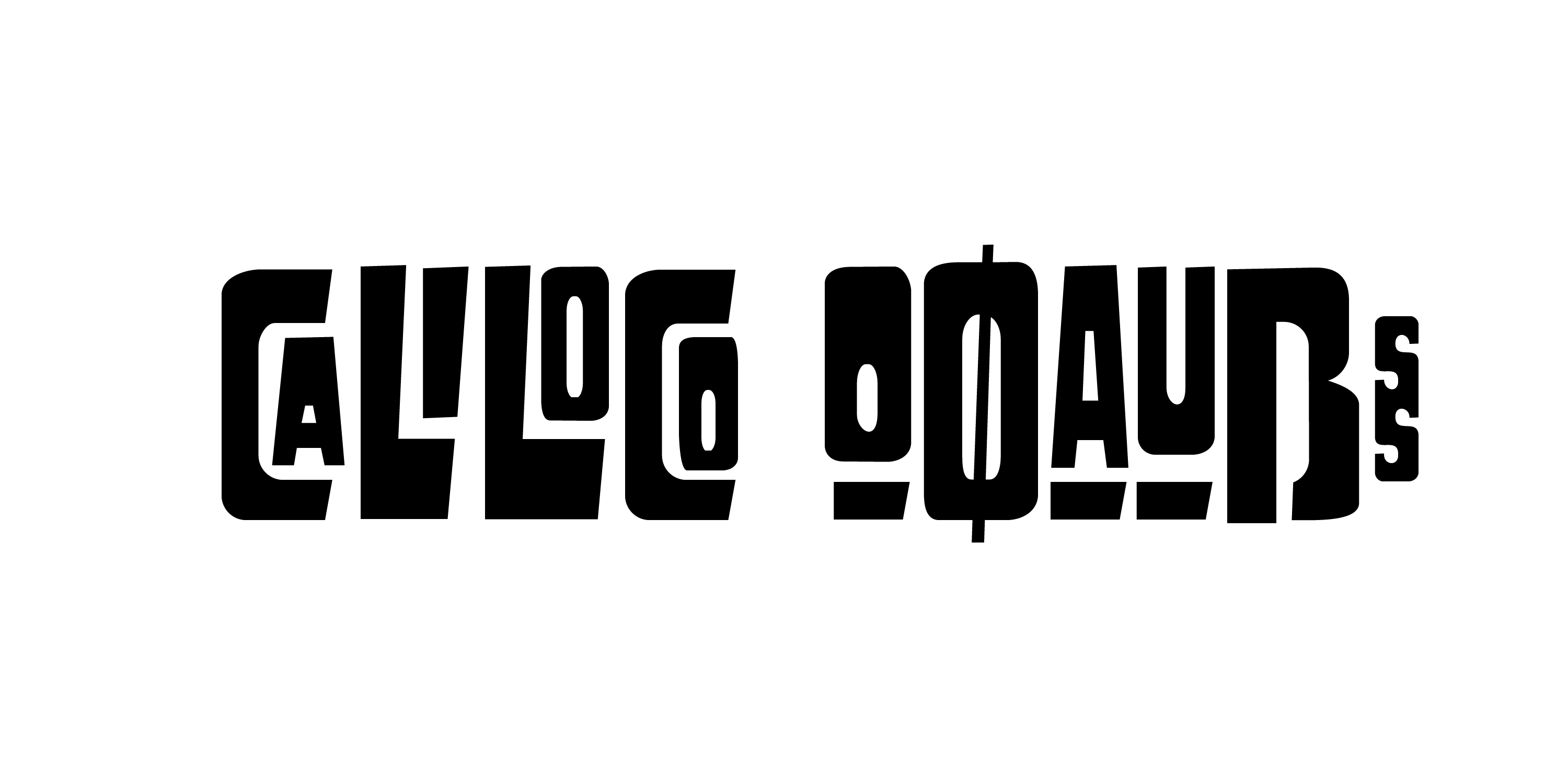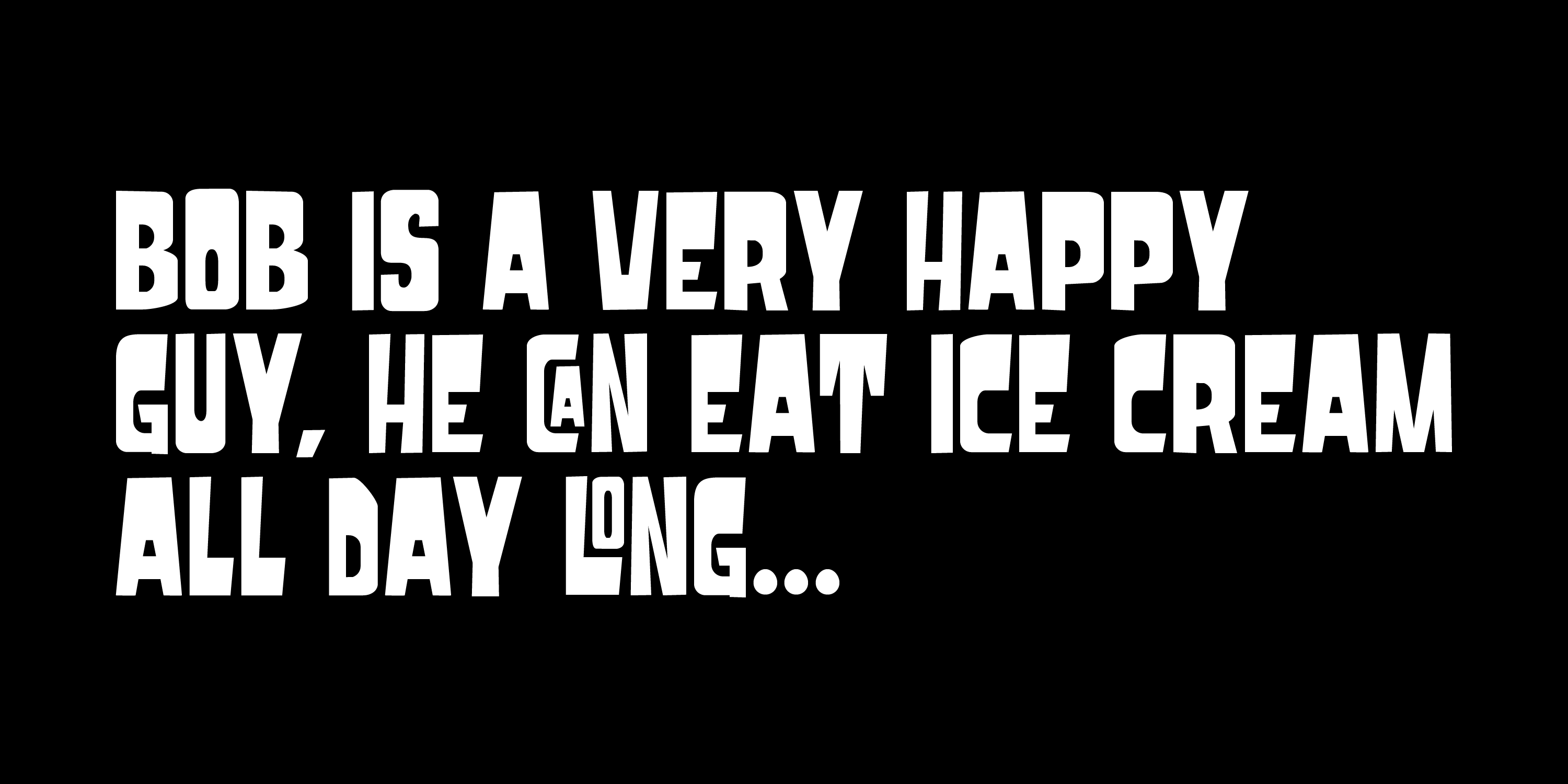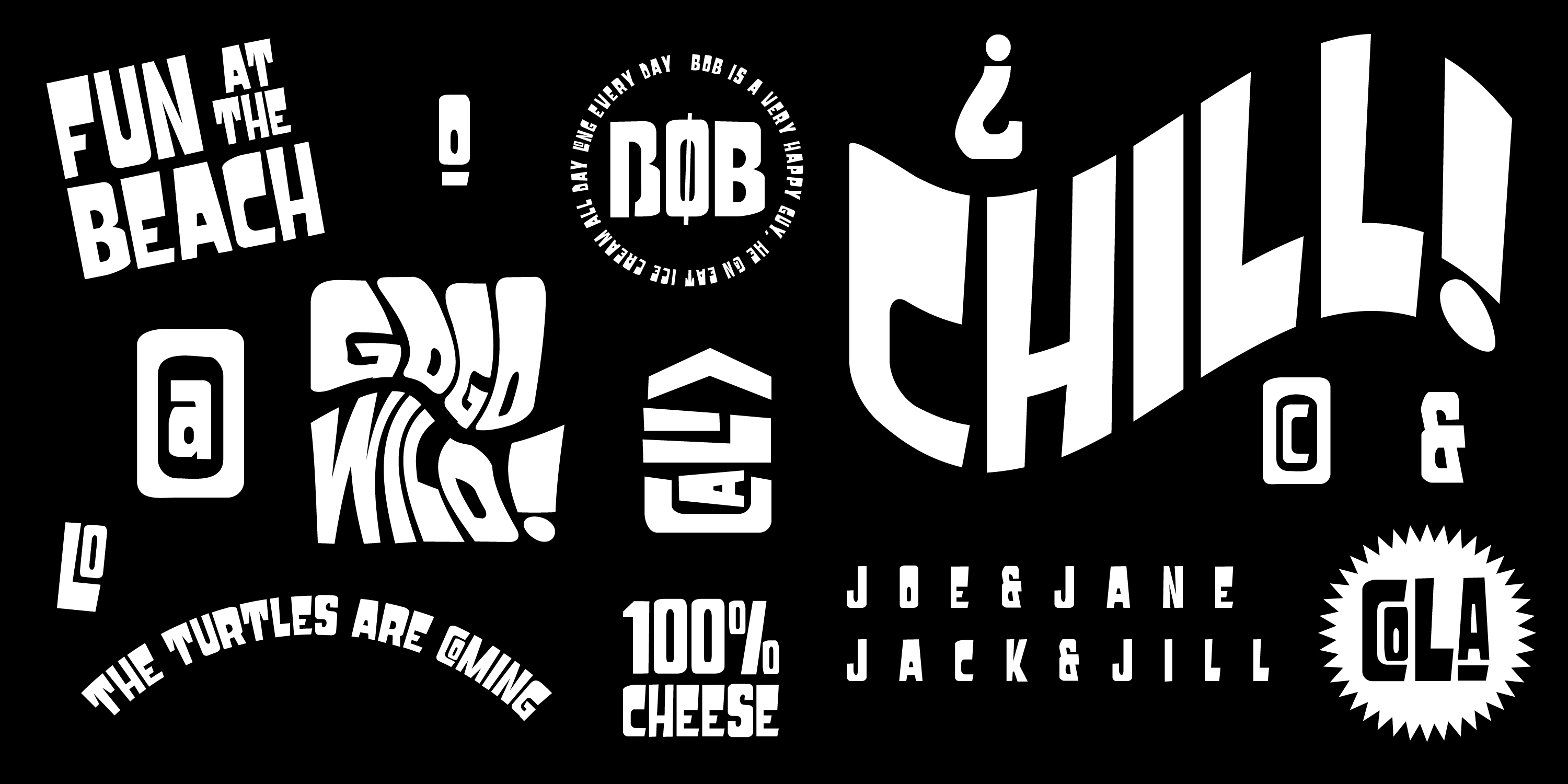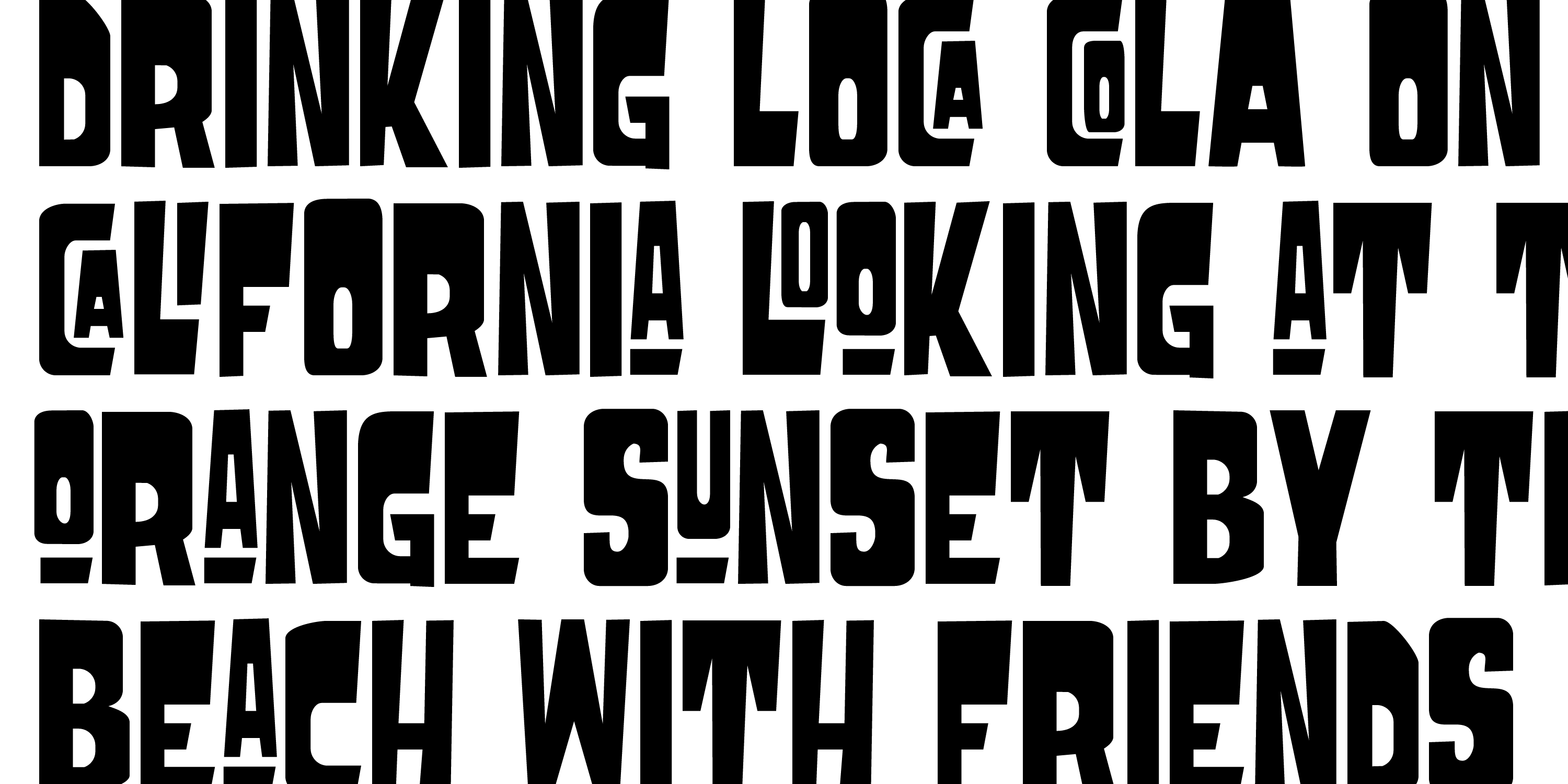
MBF Grub
Grub is a fun, playful and quirky bold font. This modern sans serif typeface can be used perfectly for logo, titling, headline, poster, t-shirt and many more.